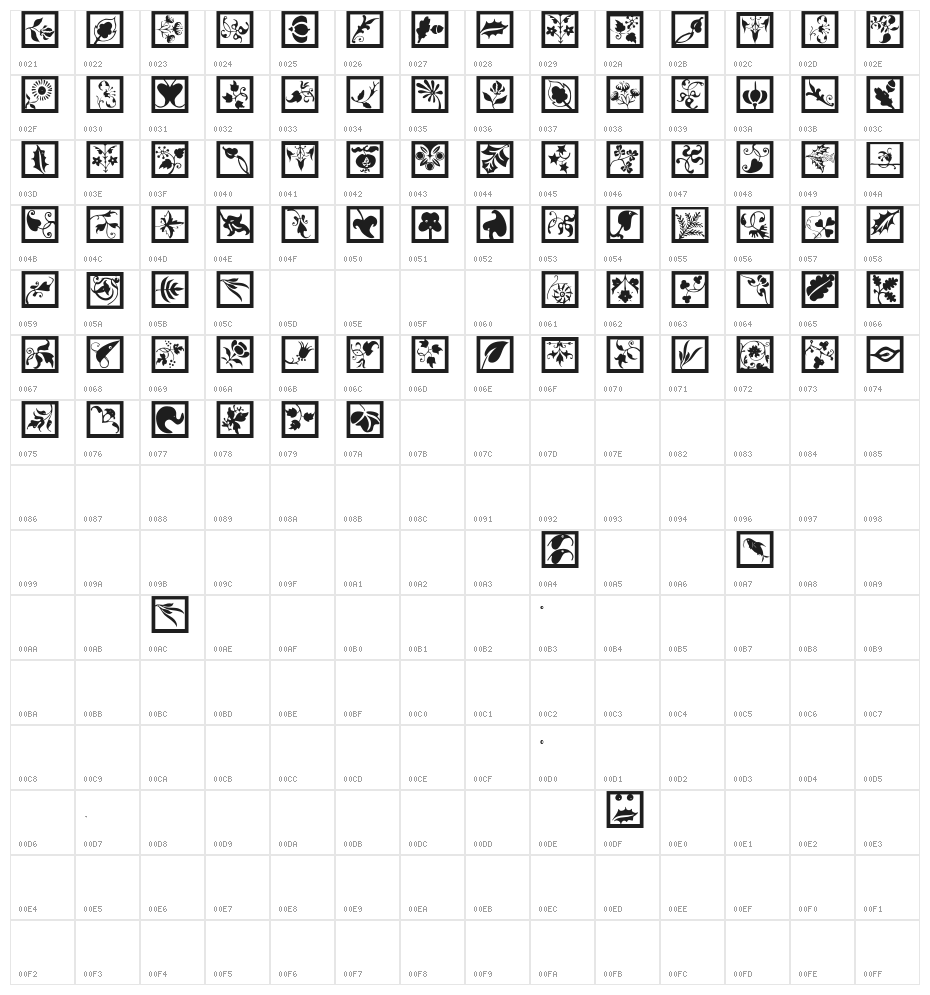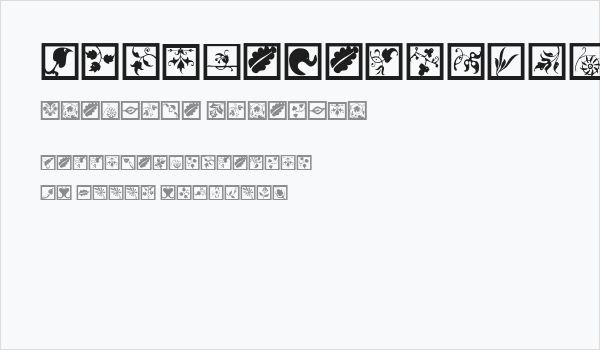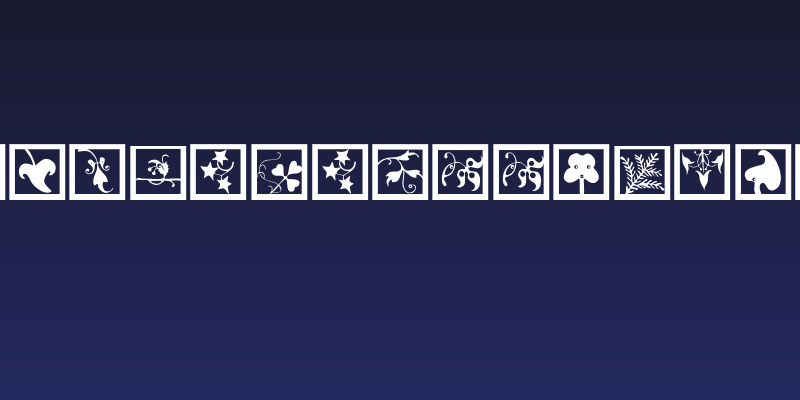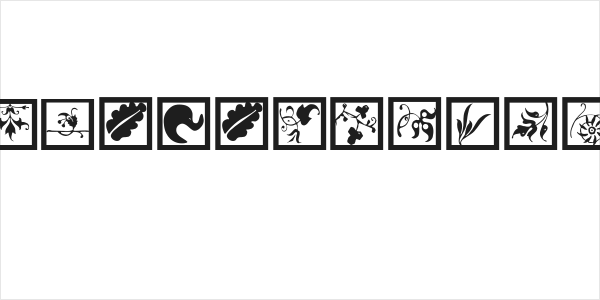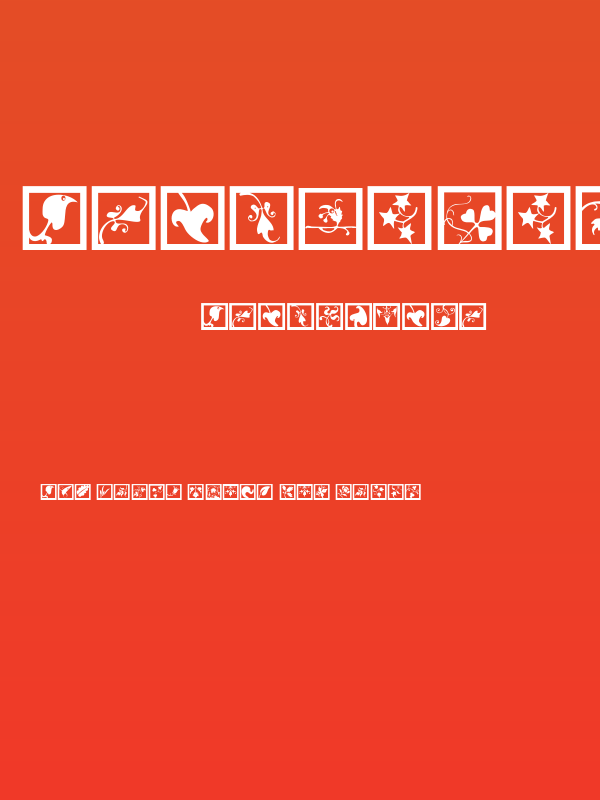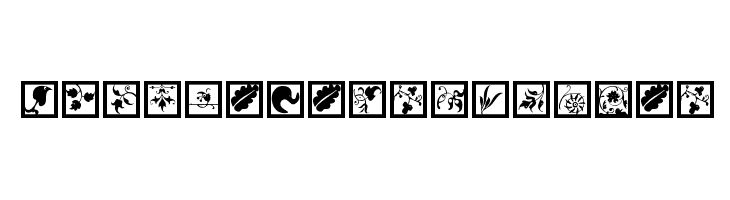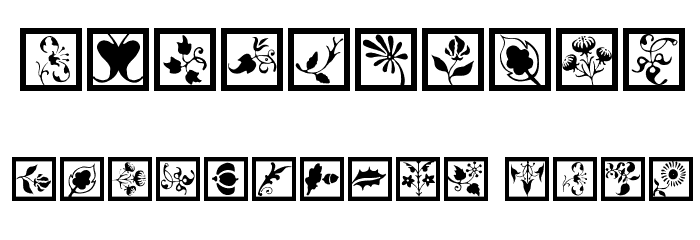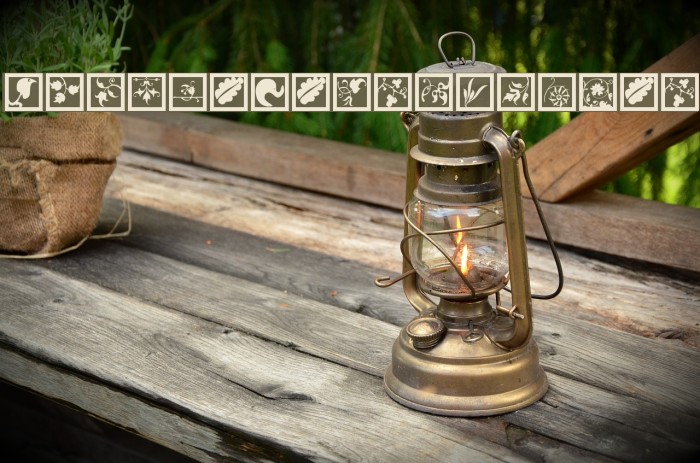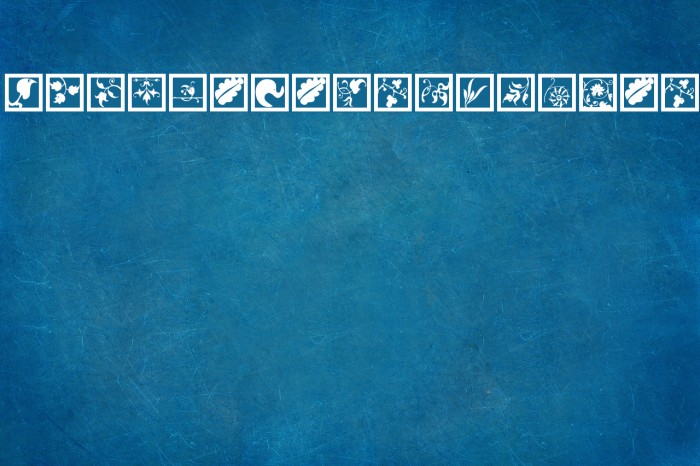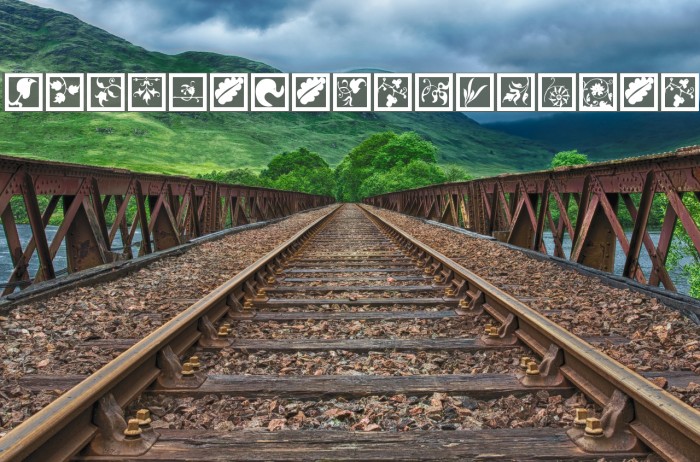
TypoJewelsSquares Font
TypoJewelsSquares Description
A decorative dingbat set featuring various floral and botanical silhouettes, each enclosed in a bold square border. The designs are highly stylized, with strong black-and-white contrast and intricate details, making each glyph visually distinct and ornamental.
| Overall Style | Decorative, Ornamental, Botanical |
| Use Case | Decorative elements, Borders, Accents, Logos |
| Proposed Projects | Invitations, greeting cards, scrapbooking, decorative borders, packaging, branding, and digital art. |